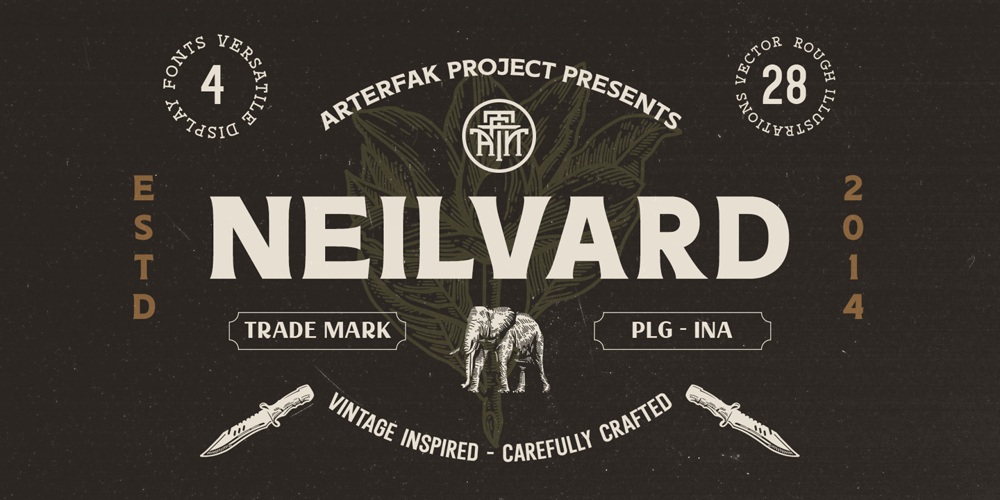
Neilvard Font Family was designed by Ahmad Ramzi Fahruddin and published by Arterfak Project. Neilvard contains 6 styles and family package options. Neilvard is inspired by vintage labels and old school illustrations. Carefully created with high consideration of the versatility and classic feel. There are 4 fonts with different letterforms that gives a great combination with 2 major font and 2 secondary fonts as the sub-headline text. Also, completed with extra rough illustrations to boost your design projects. Neilvard font set is perfect for labels, posters, typographic design, packaging, sign painting, vintage logo, packaging, and apparel design. These fonts are basically created to be combined with other graphic elements such as illustrations, badges or icons.PS: These are All-caps fonts, that suitable for display needs, with uppercase, numbers, symbols, and accents.Hope you enjoy this good stuff, as much as I excited create them.